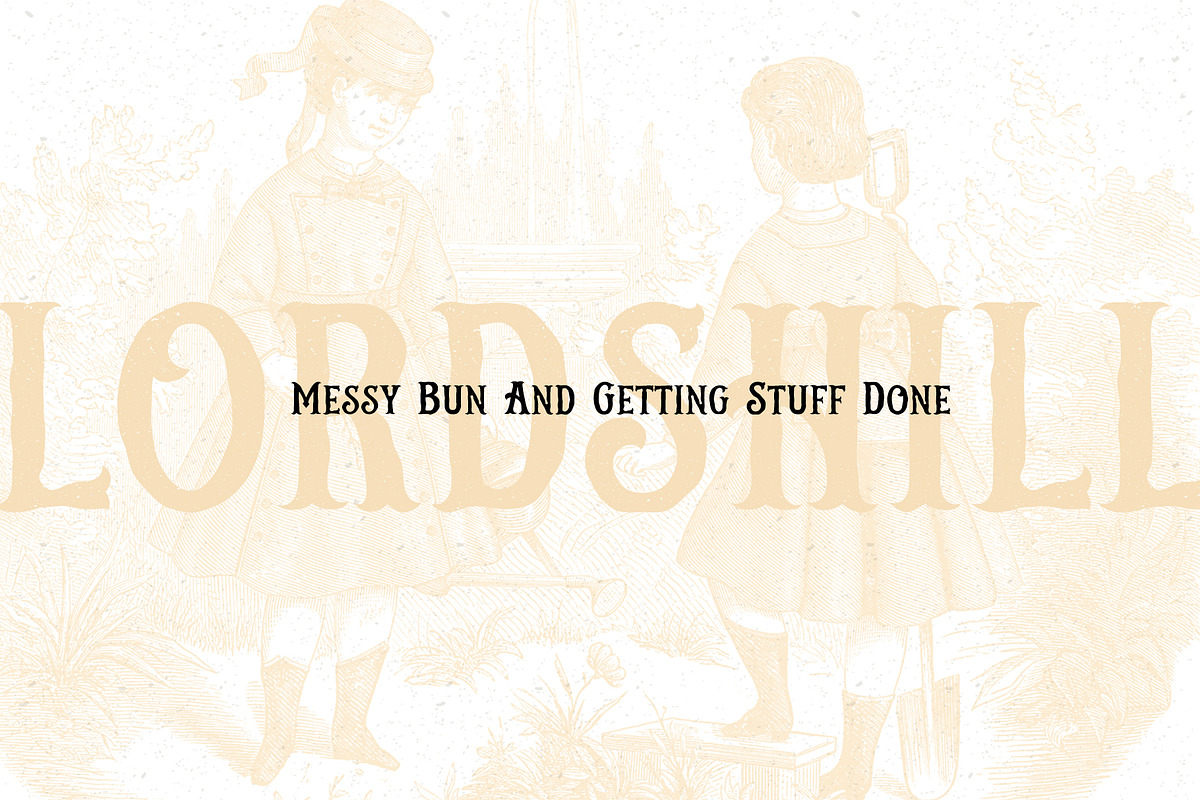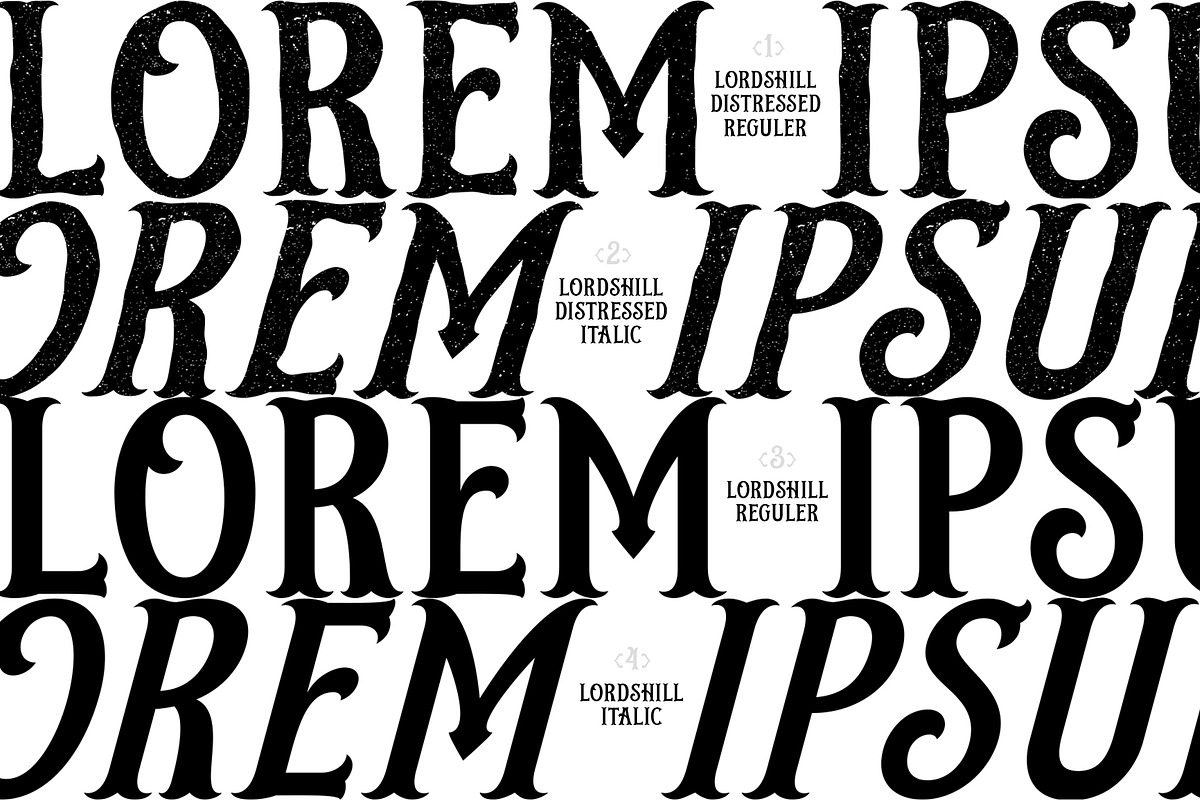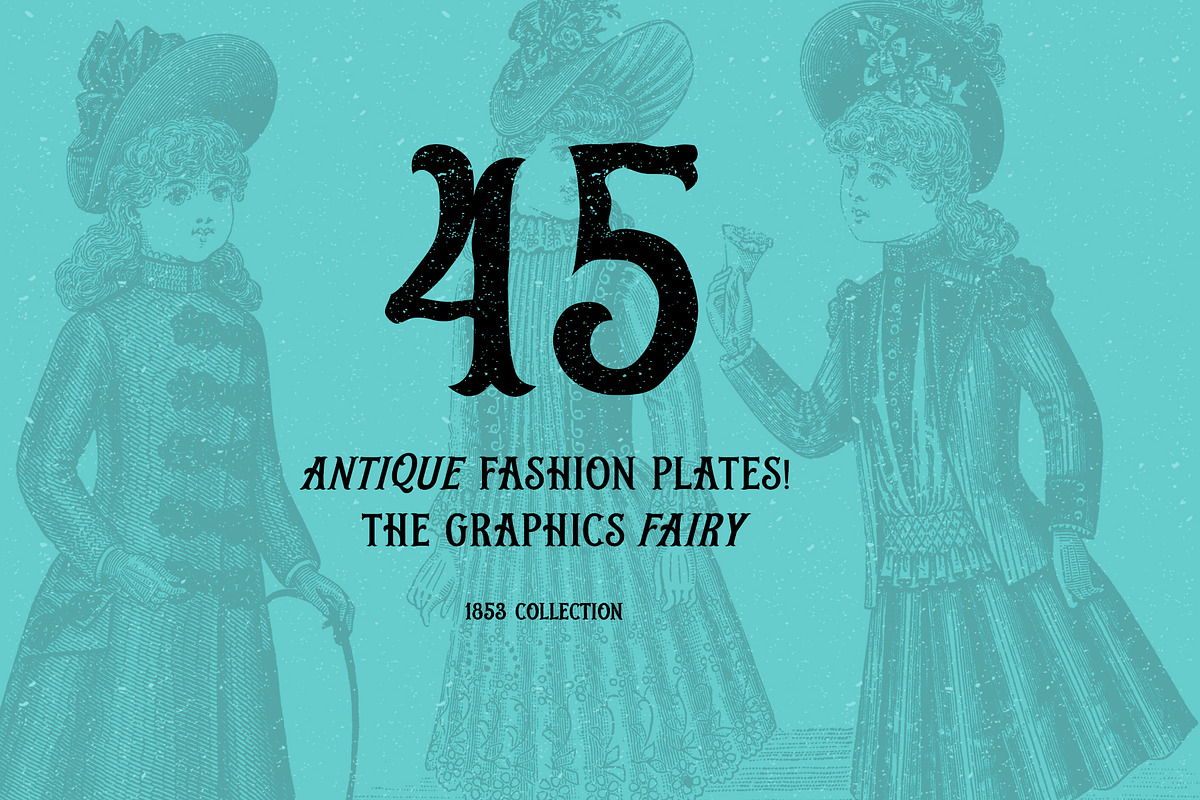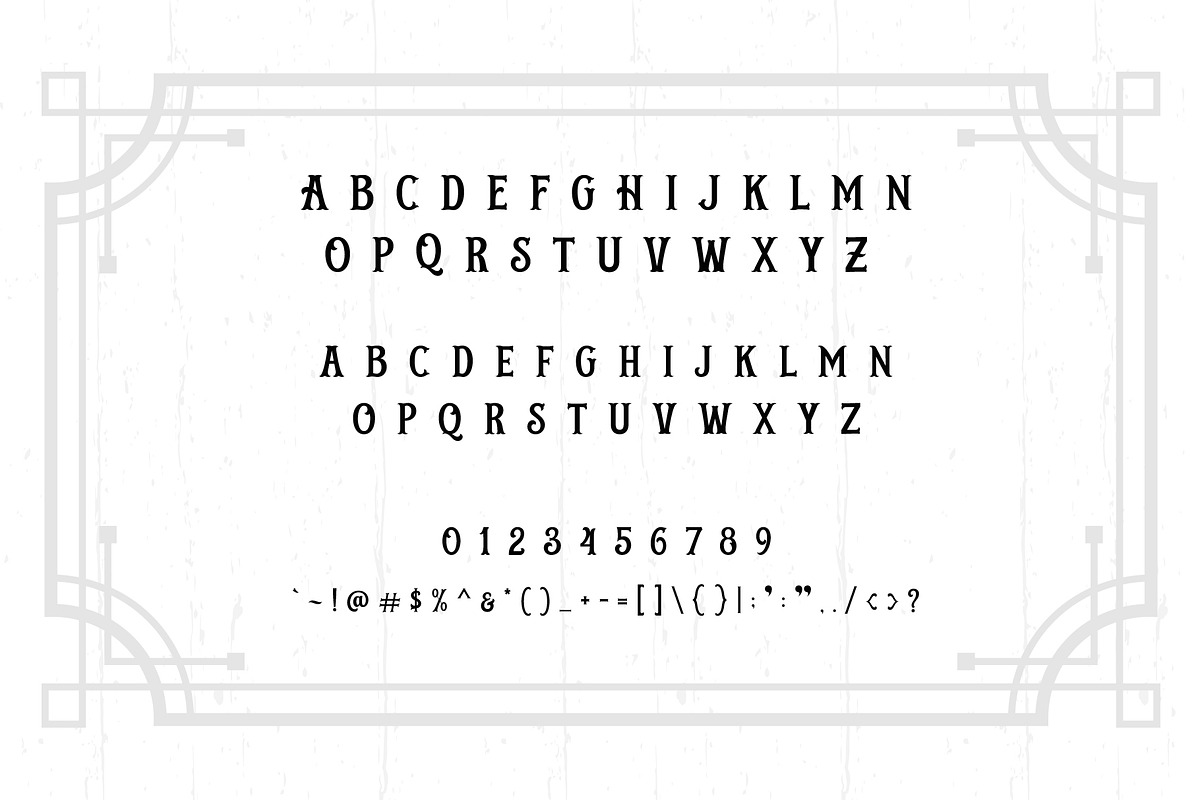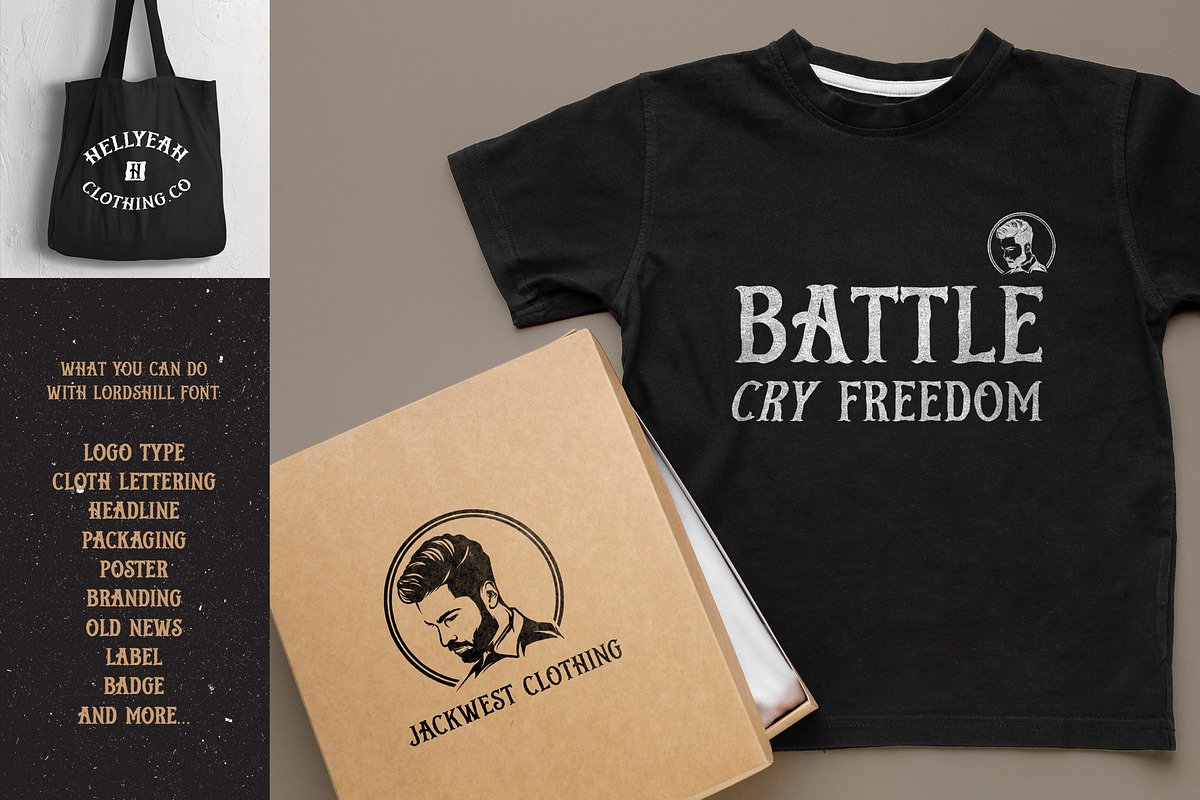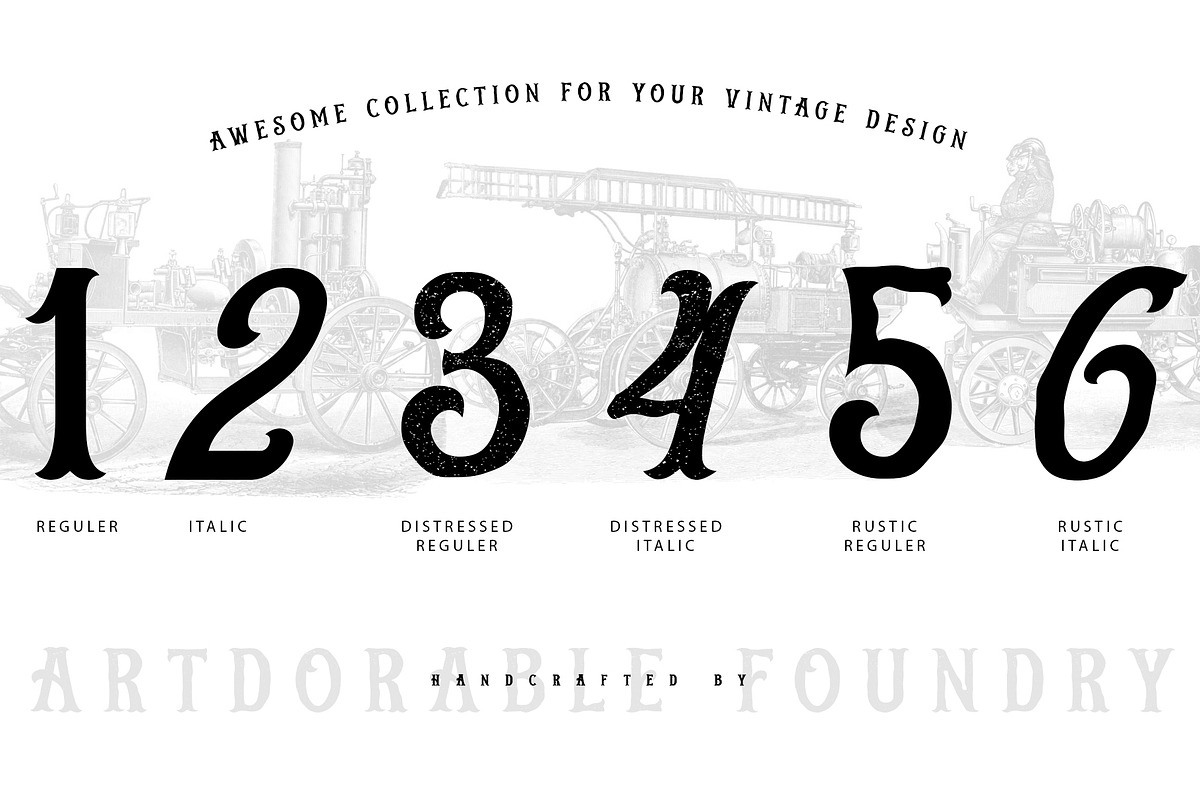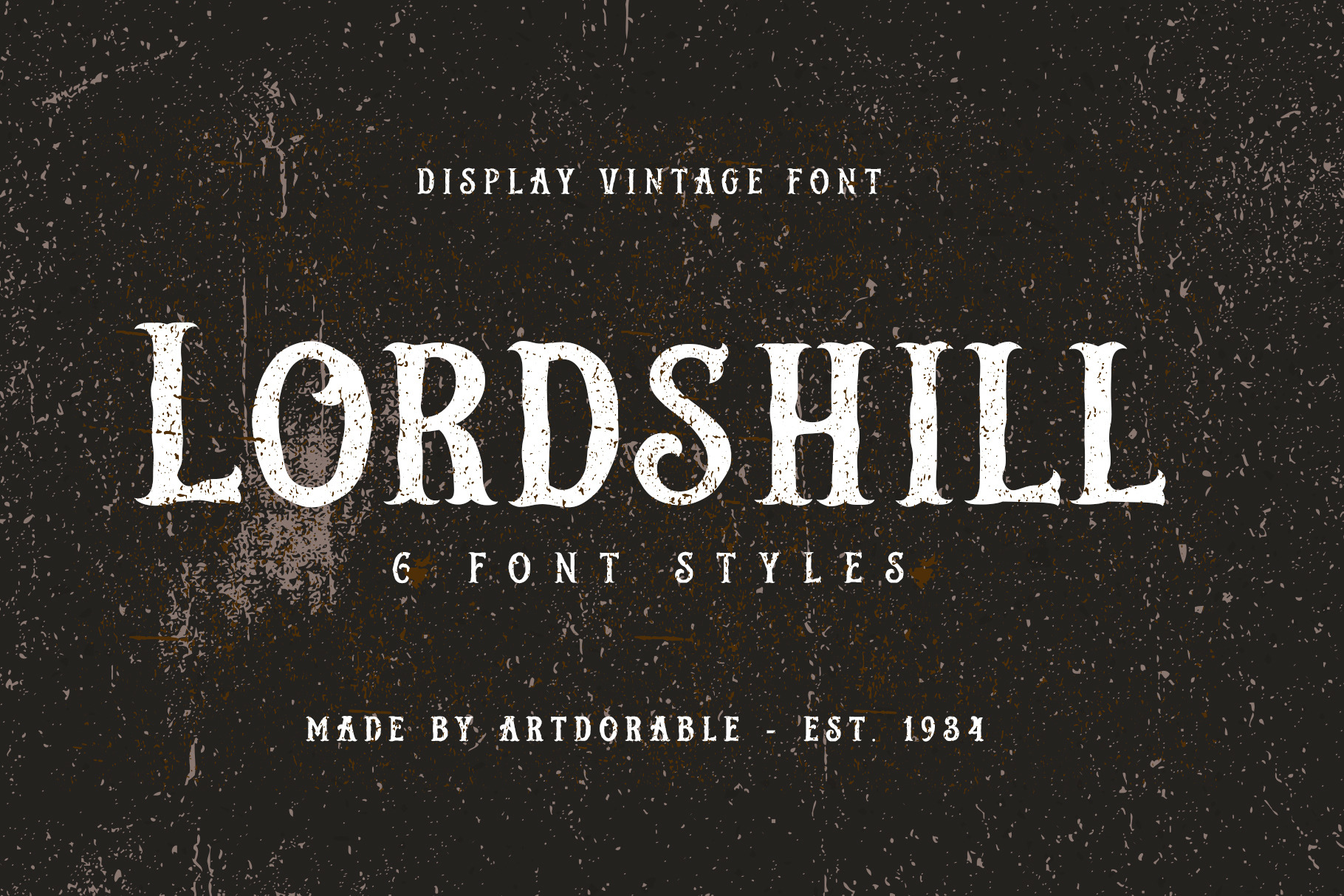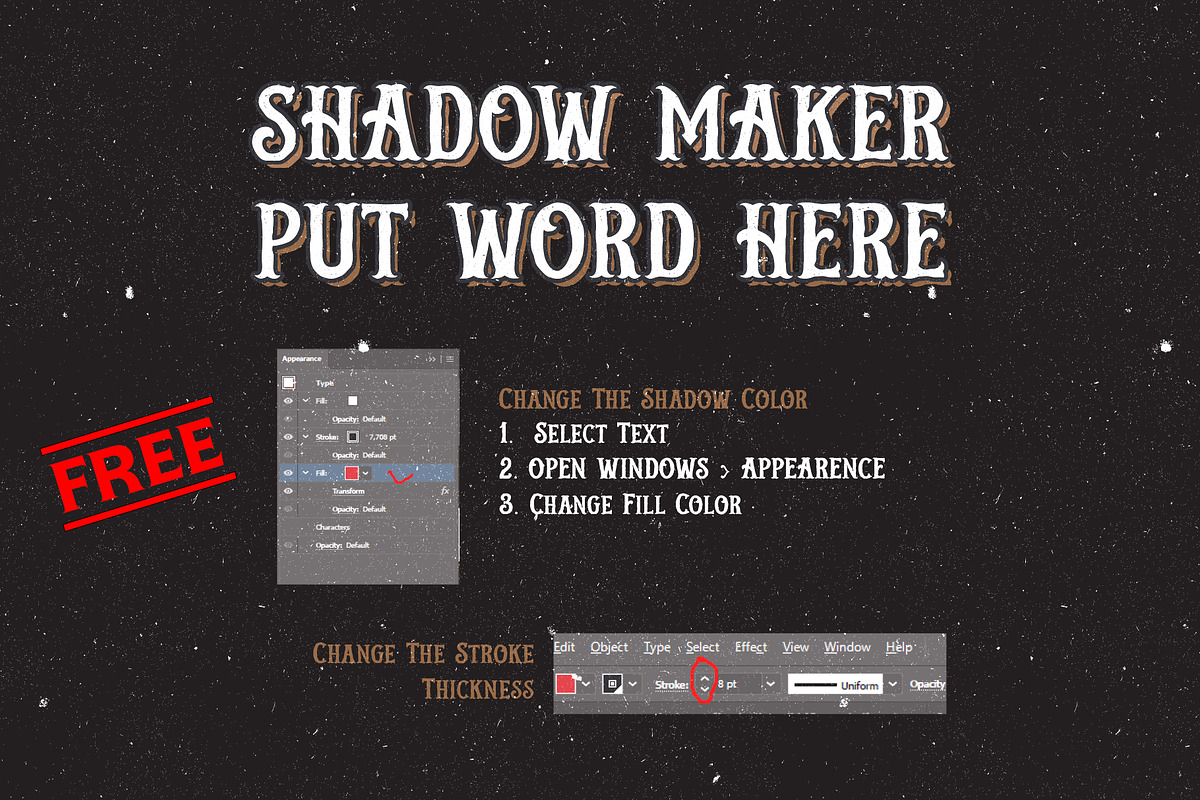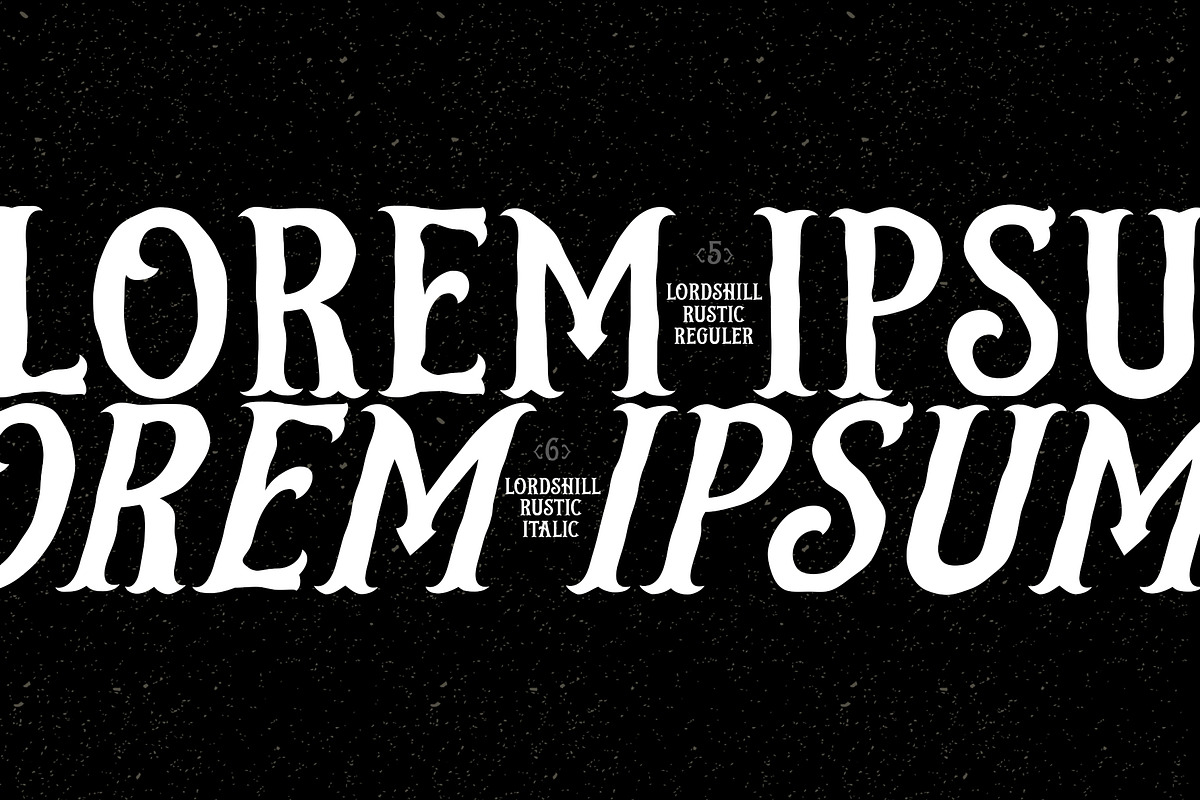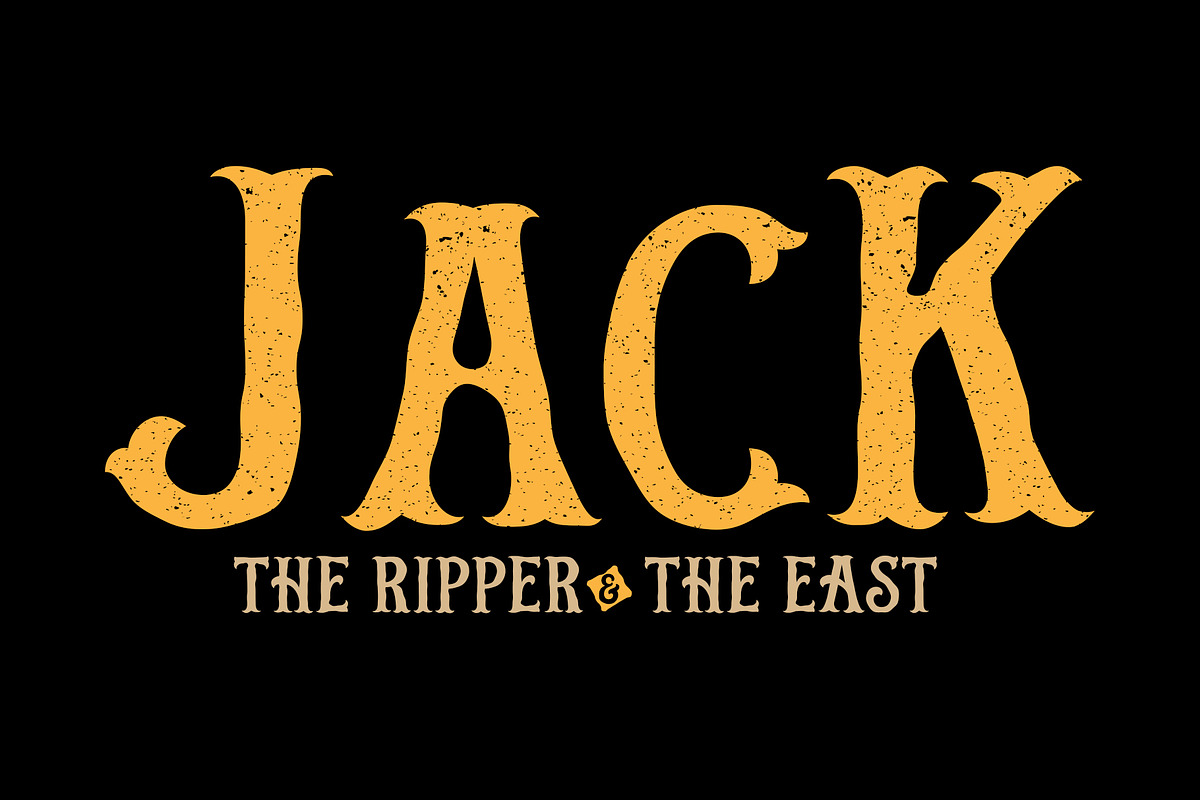
Lordshill (6 Font Styles)
Lordshill - Display Vintage Font
Lordshill - Display Vintage Font an old style font made carefully handcrafted. The complete type from Caps and Lower Caps, numeric and punctuation. It's also have a modern touch suitable for logo text, branding, poster, old news headline, magazine/publishing, label, badge, packaging, or for any occasion.
Font features:
- All Caps and Small caps for lower case keyboard
- Numeric